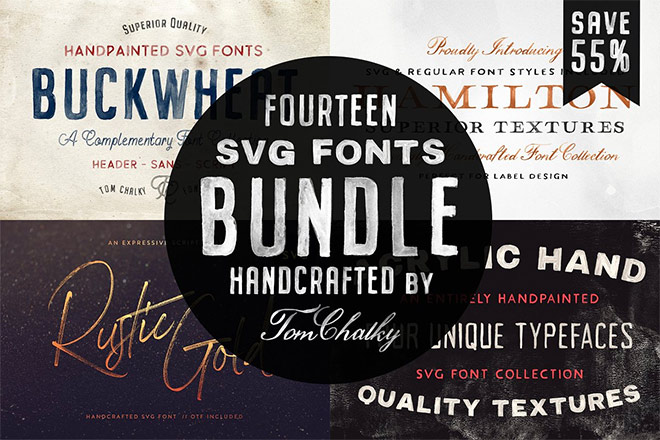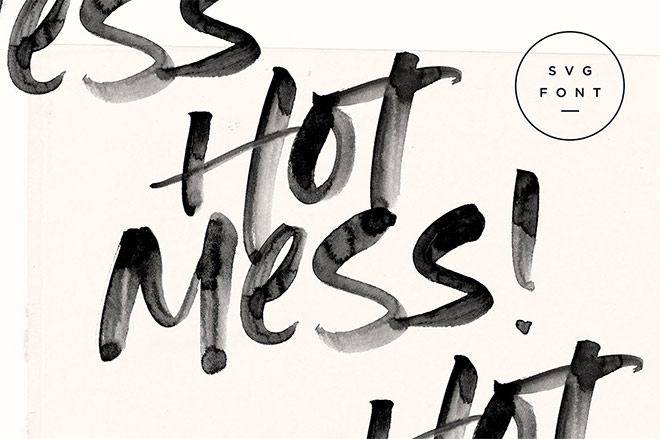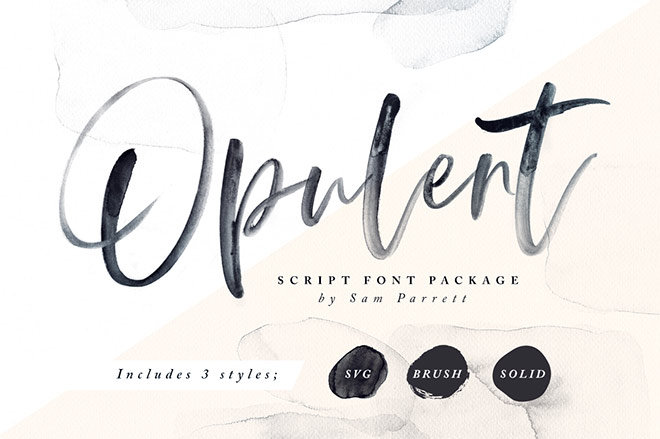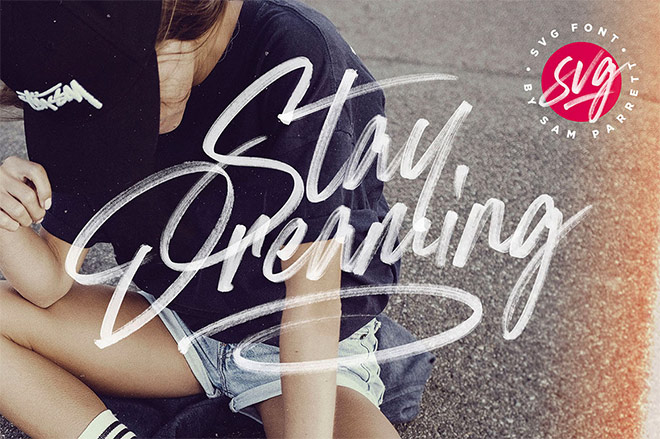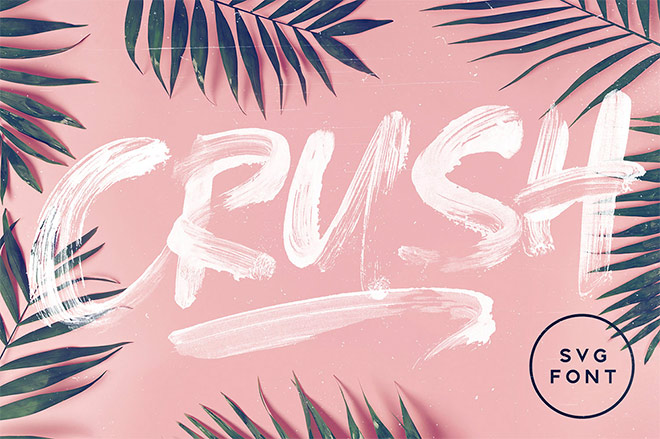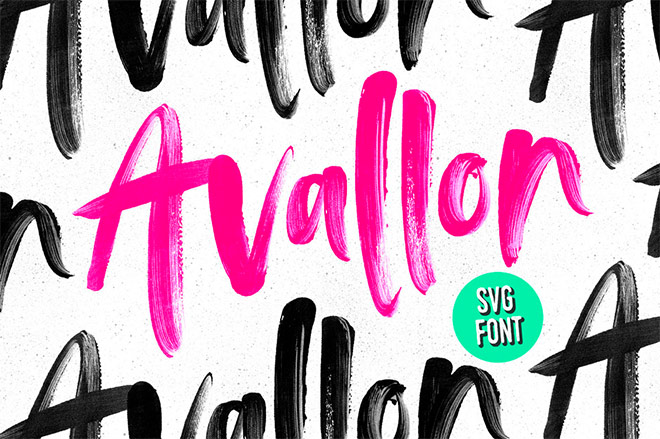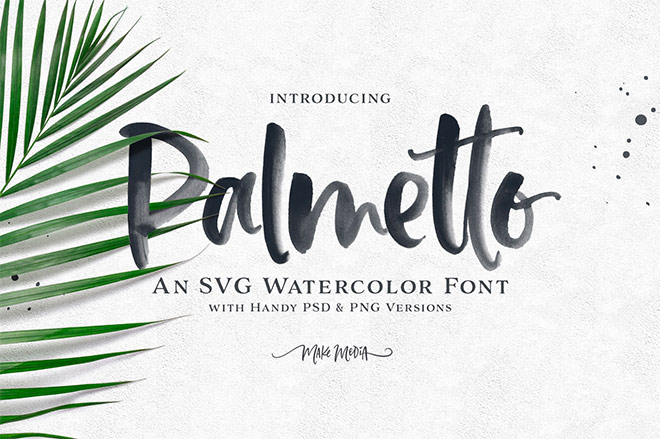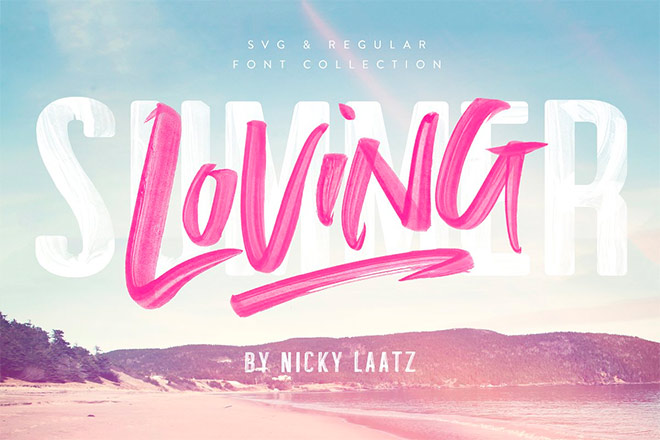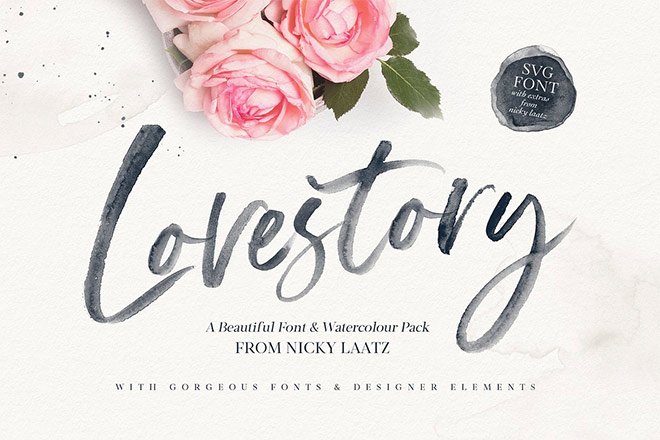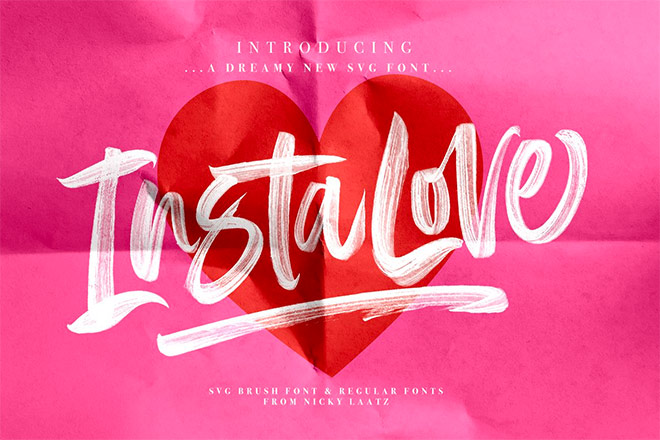
Why You Should Replace All Your Hand-Drawn Brush Scripts with SVG Fonts
Hand-drawn fonts are a crucial tool for creating an informal design style with a human touch, but as with all handmade art styles, you can’t beat the authenticity of artwork that has actually been created by hand. Brush scripts provide a quick and easy way to add hand-painted lettering to your designs, but traditional fonts can look a little fake. SVG Fonts are an innovative new technology that retains the detail and texture of the original hand-drawn scan, which results in a much more realistic font that is difficult to tell apart from authentic hand-lettered type.
Traditional Fonts vs SVG Fonts
Traditional fonts are made of vector graphics in a single colour: Black. This is ideal for defined serif or sans-serif characters, but handmade type needs to be vectorized into glyphs with a solid fill and hard outlines, which means they lose the definition of the original hand-drawn lettering. SVG fonts can contain full-colour graphics and transparency, which opens up a whole world of innovative new typefaces known as Color Fonts. One of the most common uses of SVG/Color Font technology is to create next-generation handmade fonts that look incredibly realistic with all the detail of a marker pen or paintbrush.
The Downsides of SVG Fonts
While SVG does stand for ‘Scalable Vector Graphics’, handmade fonts using SVG technology aren’t actually vector graphics at all, they are made using an embedded bitmap image. This means the type will begin to appear pixelated if the font is scaled larger than the original bitmap size. The best SVG fonts are made using high-resolution scans, but it’s something to keep in mind if you’re working on a large print design.
SVG fonts are used like traditional fonts, you can edit the size, tracking, and even OpenType features like normal, but you can’t alter the colour of the font directly. A workaround is to apply a Color Overlay, Hue/Saturation adjustment, or some kind of mask to alter the appearance.
SVG Fonts to Replace Your Old Brush Scripts
When you need to add handmade type styles to your designs, SVG fonts provide the most realistic and authentic looking results compared to the basic appearance of traditional fonts. While SVG fonts do have some unfortunate drawbacks, they are always supplied with backup TTF or OTF versions so you have the best of both worlds! I’ve curated this collection of the best SVG fonts with a hand-drawn style, including friendly handwriting, elegant watercolour lettering, and rebellious brush scripts.
Handcrafted SVG Font Bundle by Tom Chalky
Hot Mess SVG Font by Set Sail Studios
Opulent + SVG Font by Set Sail Studios
Stay Dreaming SVG Font Set Sail Studios
Crush SVG Font Set Sail Studios
Avallon by Set Sail Studios
Portabella Font Collection by Callie Hegstrom
Palmetto SVG Font by Callie Hegstrom
Summer Loving Font Collection by Nicky Laatz
The Lovestory Font Collection by Nicky Laatz
InstaLove SVG Font by Nicky Laatz
Loving Celine Signature Font Trio by SilverStag
SkyLove SVG Hand Drawn Watercolor Script Font by SilverStag
Loving Rose SVG Watercolor Font by SilverStag
Black Caviar SVG Font by Ivan Rosenberg
Rocked SVG Font by Ivan Rosenberg
Empathy SVG Font by Ivan Rosenberg
Black Dragon SVG Font by Ivan Rosenberg
Chester SVG Font by Ivan Rosenberg
Pure Heart – OpenType SVG Brush Font by Greg Nicholls
Total Rage – Brush SVG Font by Greg Nicholls
Beforth – OpenType SVG Font by Greg Nicholls
Stay Gold SVG Font Duo by Greg Nicholls
Take Charge – OpenType SVG Font by Greg Nicholls
Almonte – OpenType SVG Font by Greg Nicholls
Hunters Opentype SVG Font by Greg Nicholls
Timber Wolf – Opentype SVG Font by Greg Nicholls
Stranger Times – OpenType SVG Font by Greg Nicholls
Fierce – SVG brush script font by Itsmesimon
Wild Irish Rose brush script font by Itsmesimon
Hipetype SVG Font by Get Studio
Thunder Stone Font Duo by Get Studio
Sherin SVG Font by Get Studio
Maverick Font by Twinbrush
Hackney by Ellen Luff
Soft Notes SVG Blackletter Font by Ana’s Font
Mellow: Brush & SVG Font by Unio
Sparose SVG Font by Dhan Studio
Hello Bloomie – SVG Font Family by My Creative Land
Mr. Poster – SVG Brush Font by Type Cargo
Triester SVG Brush Font by Maulana Creative
Halden – Hand Brushed SVG Font Duo by Surplus Type Co